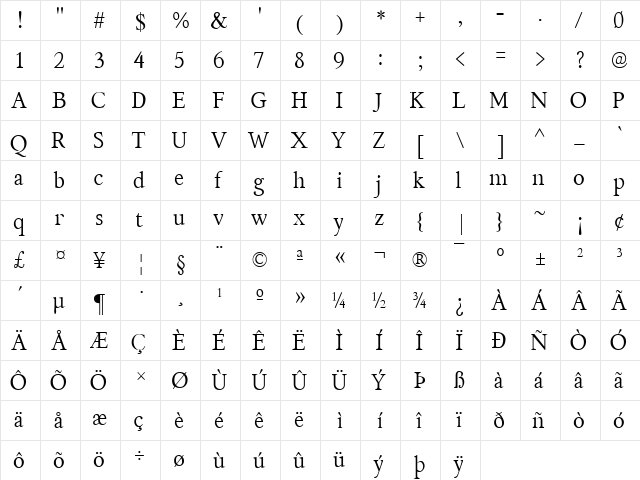
Teamouse VS Regular
Teamouse VS offers clean, dependable letterforms without strong stylistic allegiance, making it a practical choice for designers who need flexibility.